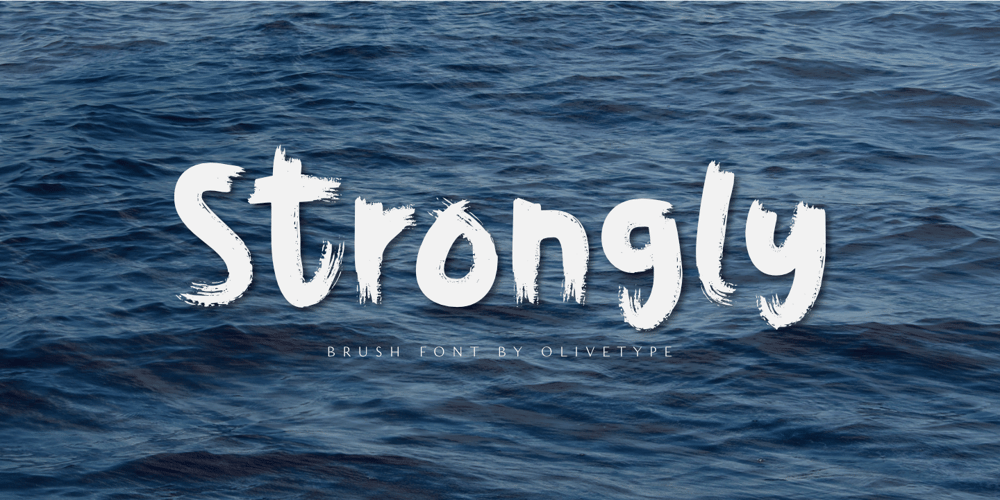
Strongly
Strongly font
Strongly Font Family was designed by Nurul Hidayani and published by Olivetype. Strongly contains 1 styles and family package options. Strongly is a simple brush textured display font. This font is the perfect fit for all of your logos, branding, social media, and crafty DIY projects. Strongly is supporting Multi-Languages, which include: Afrikaans Albanian Catalan Danish Dutch English Estonian Finnish French German Italian Norwegian Portuguese Spanish Swedish Zulu.You’ll get : Basic Latin A-Z & a-z. Numbers, symbols, and punctuations. Multilingual Support. Accented Characters : ÀÁÂÃÄÅÆÇÈÉÊËÌÍÎÏÑÒÓÔÕÖØŒŠÙÚÛÜŸÝŽàáâãäåæçèéêëìíîïñòóôõöøœšùúûüýÿžß Thank You.